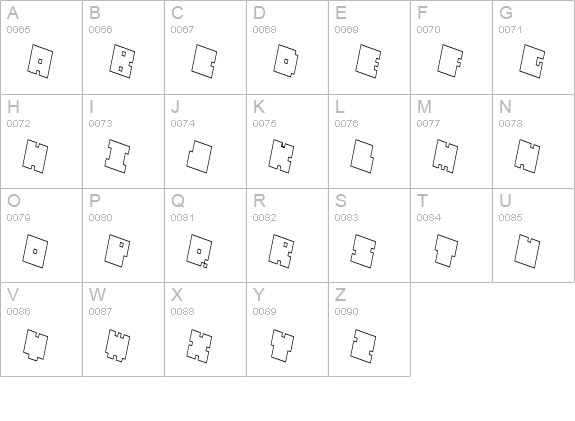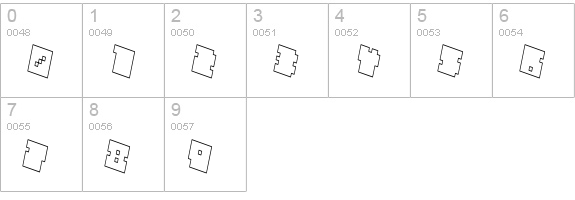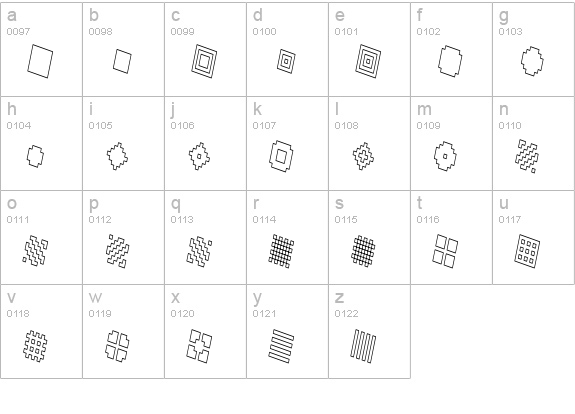
QUBE HOLLOW THIN ITALIC is a delicate, low-contrast, italic variant in the QUBE typeface family \xE2\x80\x94 well suited to fashion editorial, minimal branding, and high-contrast display.
QUBE HOLLOW THIN ITALIC font is a stunning display typeface that is sure to captivate your audience with its sleek and modern design. With its thin and elegant letterforms, this font exudes a sense of sophistication and style, making it perfect for a wide range of design projects. The italicized variant of QUBE HOLLOW THIN adds a touch of flair and dynamism to your typography, making it stand out from the crowd. Whether you're designing a logo, creating a website, or crafting a headline, this font will effortlessly elevate your design to new heights. But what makes QUBE HOLLOW THIN ITALIC font even more impressive is that it is freely available to download at FontsMarket.com. Yes, you read that right - this high-quality font can be yours for absolutely no cost. FontsMarket.com is a trusted source for a vast collection of fonts, and QUBE HOLLOW THIN ITALIC is just one of the many gems you can discover there. So why wait? Bring your designs to life with QUBE HOLLOW THIN ITALIC font. Its clean lines, distinct character shapes, and italicized style will add a touch of sophistication and elegance to any project. Download it for free at FontsMarket.com and unleash your creativity today.